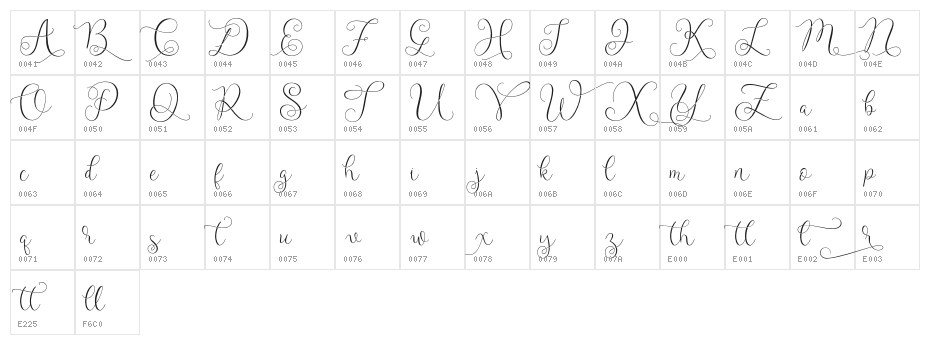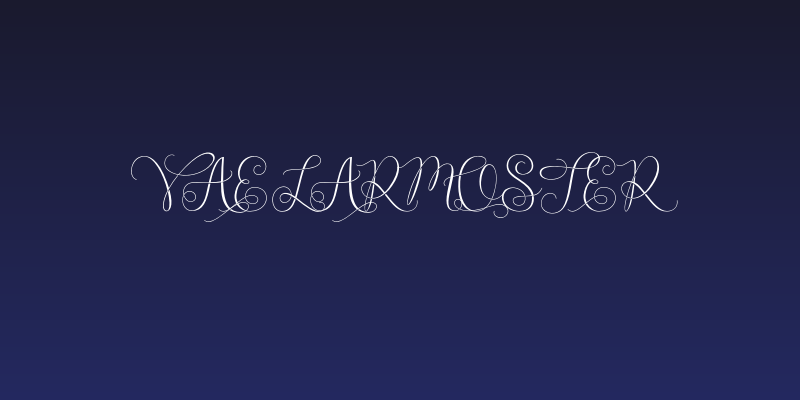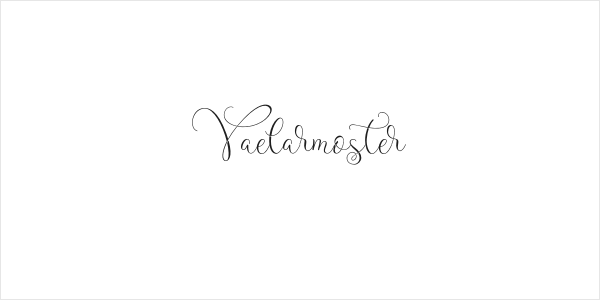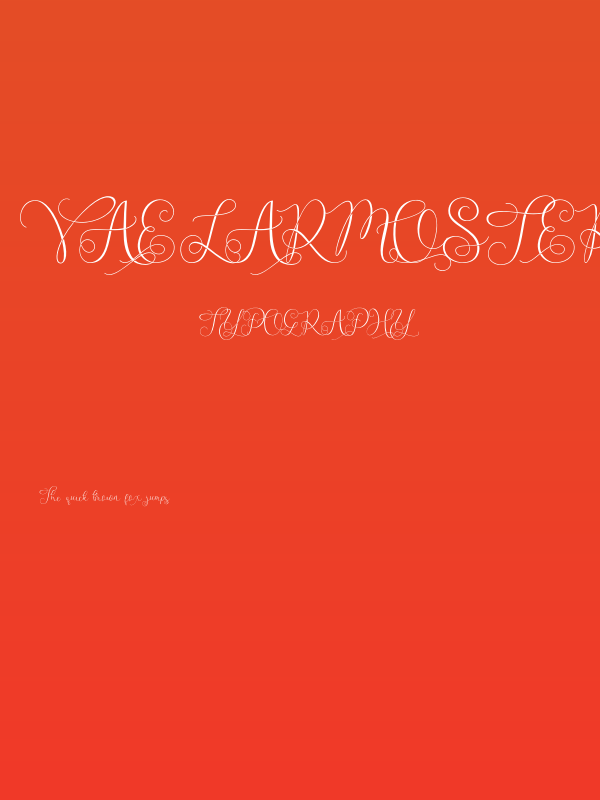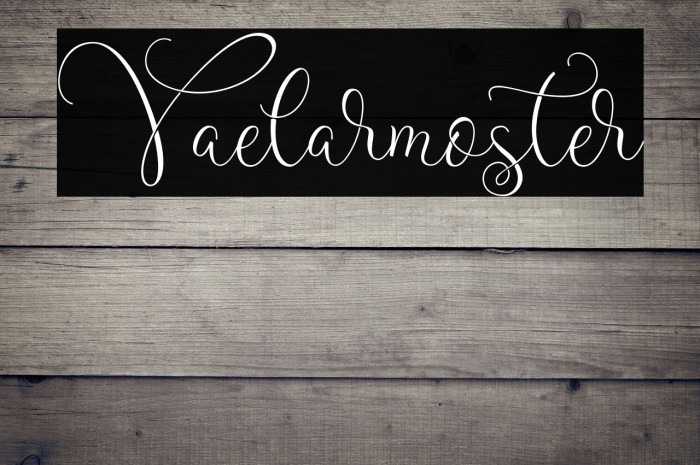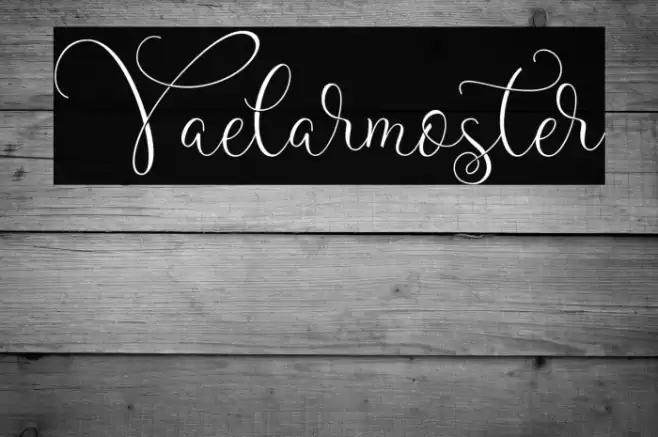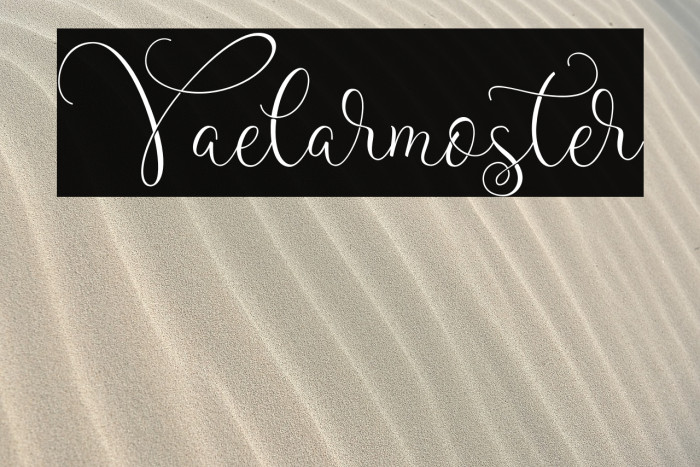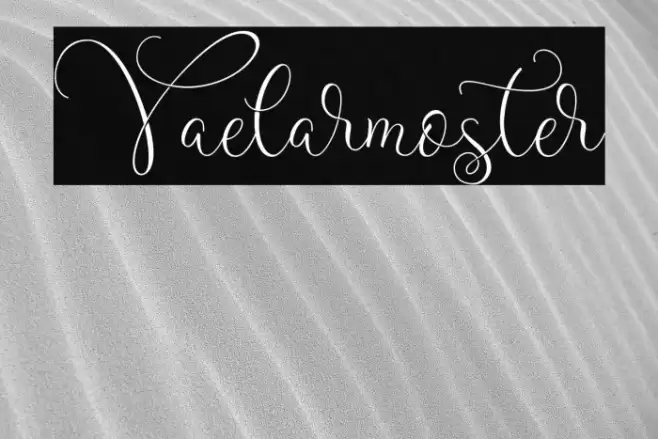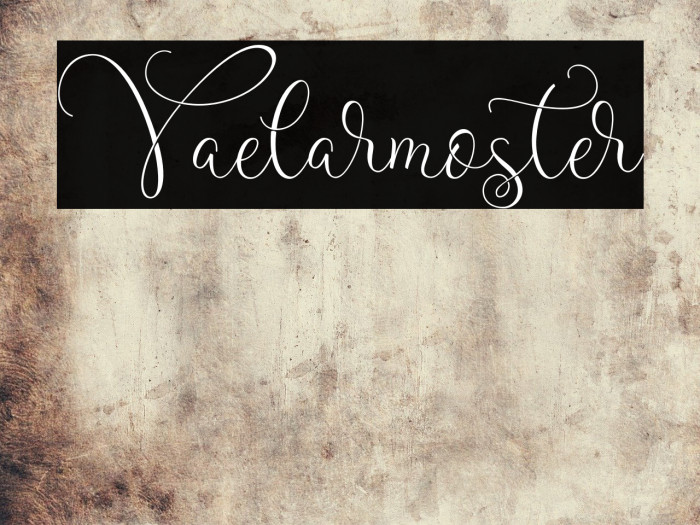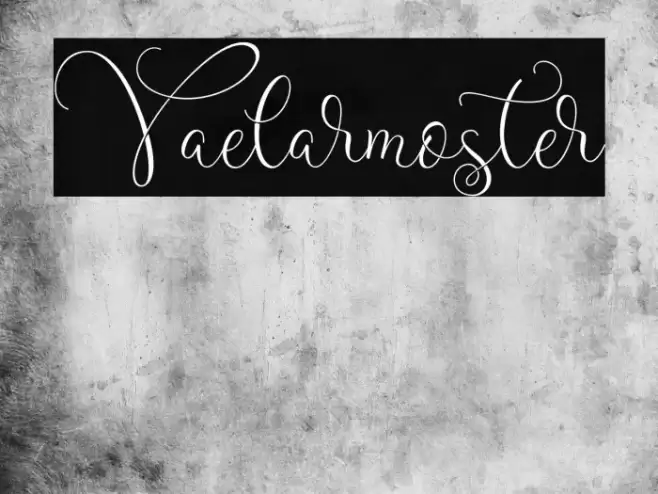
Vaelarmoster Font
Vaelarmoster Description
This font is an elegant and intricate script style, characterized by its flowing, interconnected letters and elaborate flourishes. The uppercase letters are particularly ornate, with extended swashes and loops that give a sense of grandeur and sophistication. The lowercase letters maintain a consistent style, with smooth curves and delicate lines that enhance readability despite the decorative nature. The overall appearance is both graceful and artistic, making it suitable for formal and creative applications. The font's design is reminiscent of classic calligraphy, yet it maintains a modern touch through its refined execution.
| Proposed Projects | Ideal for wedding invitations, elegant branding, high-end product packaging, and artistic posters. |